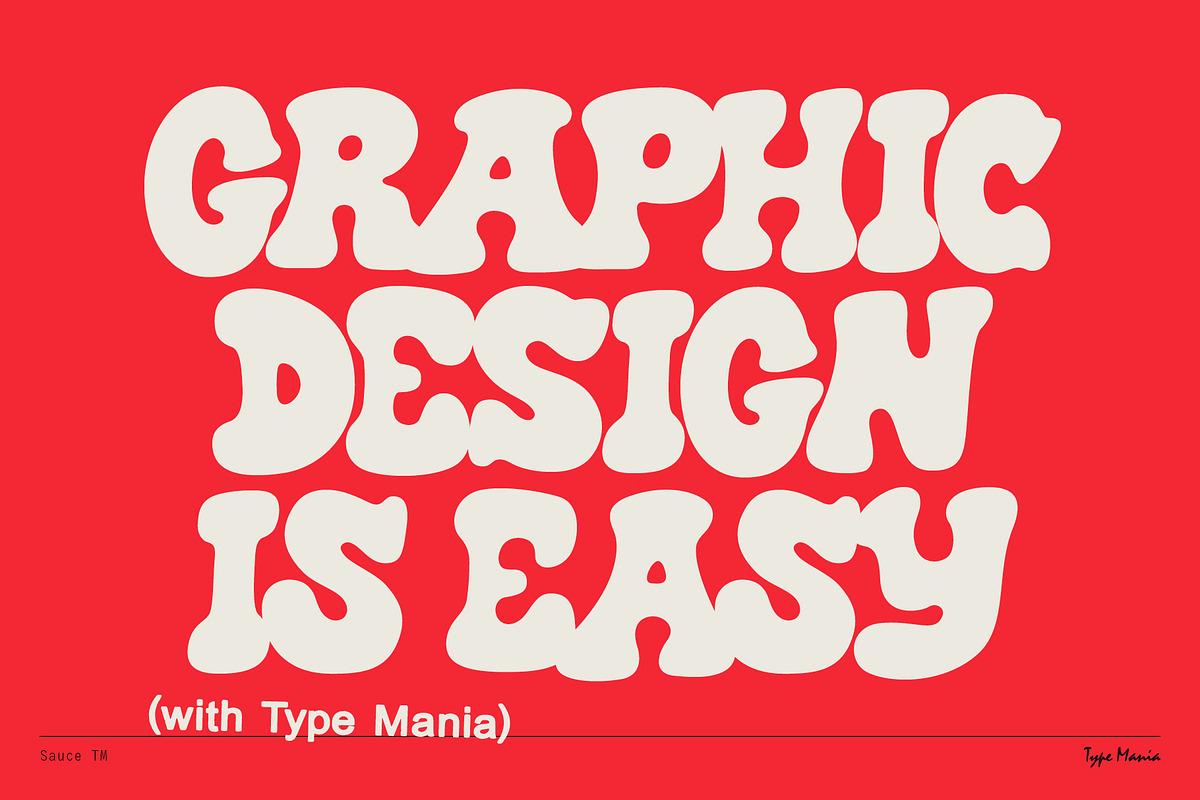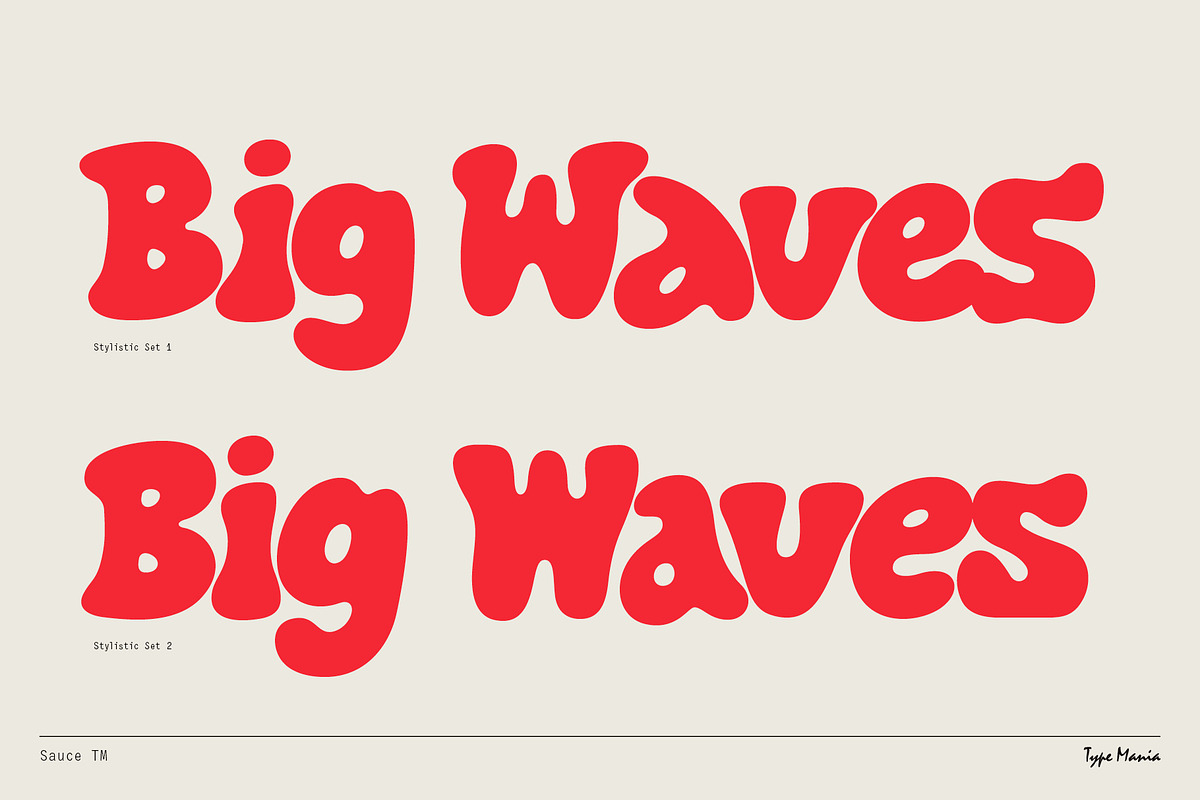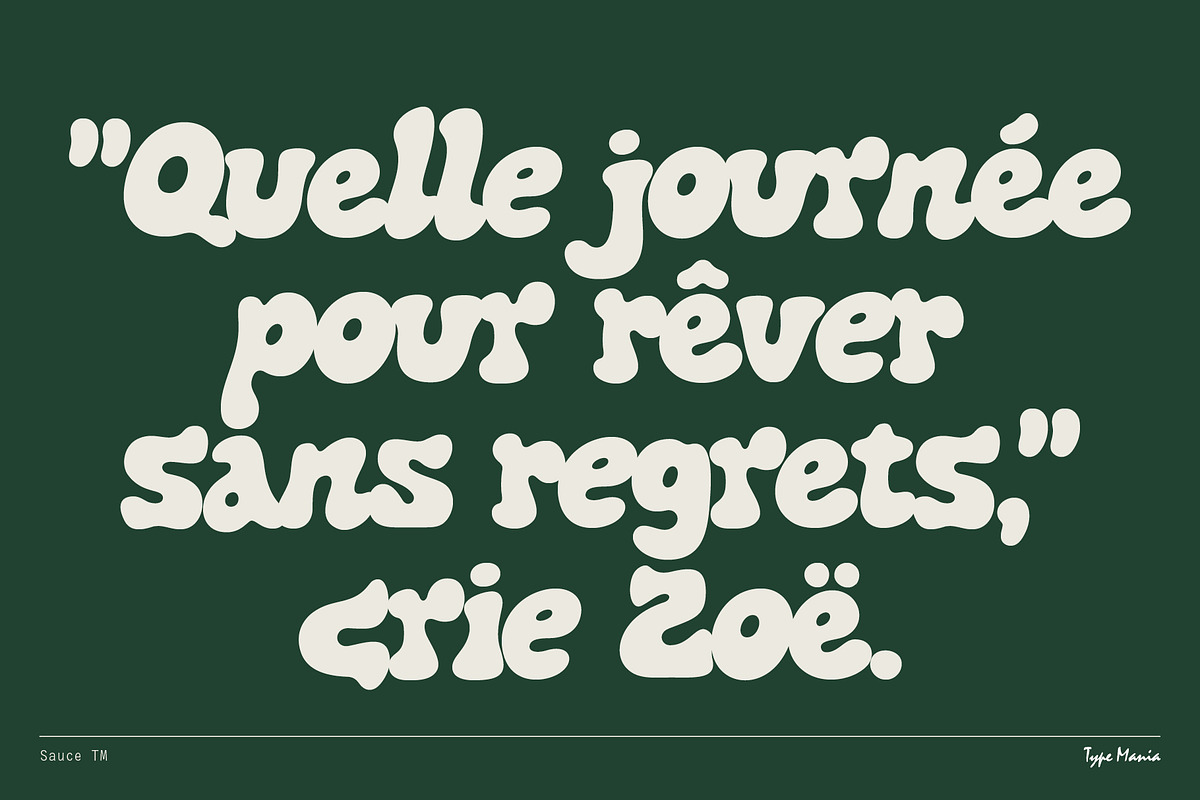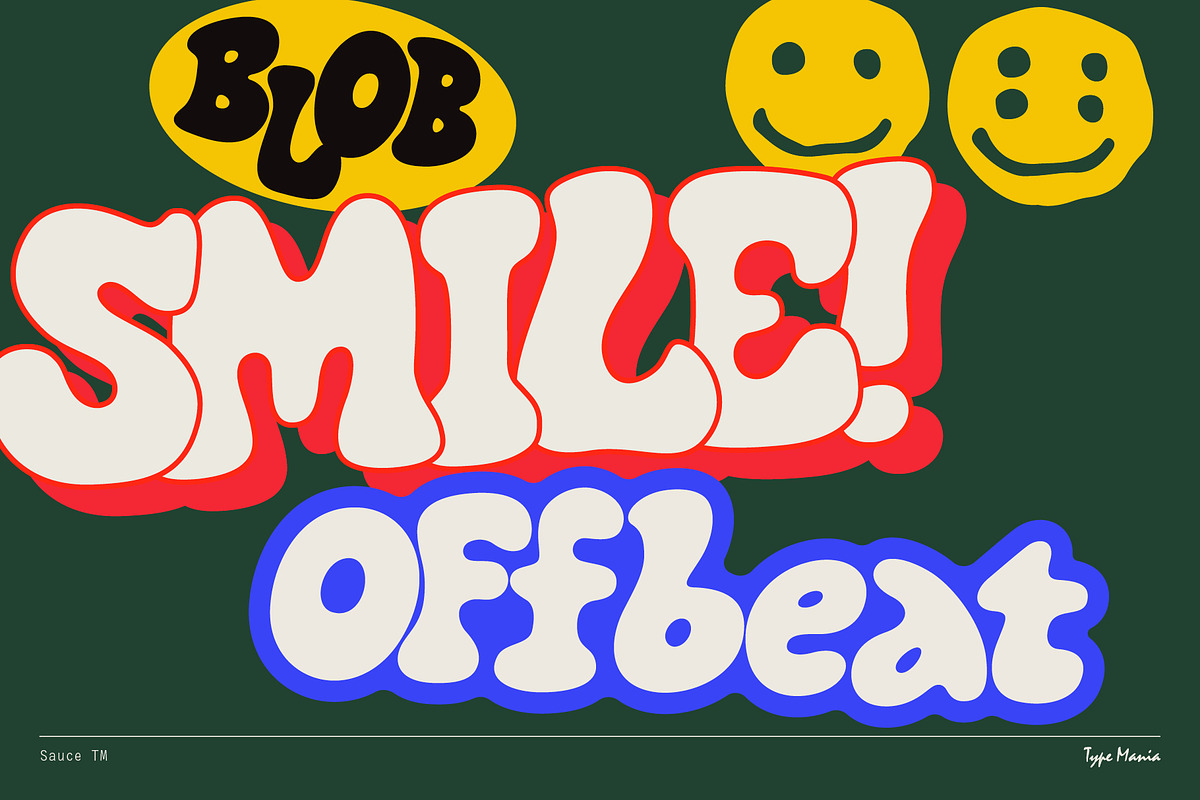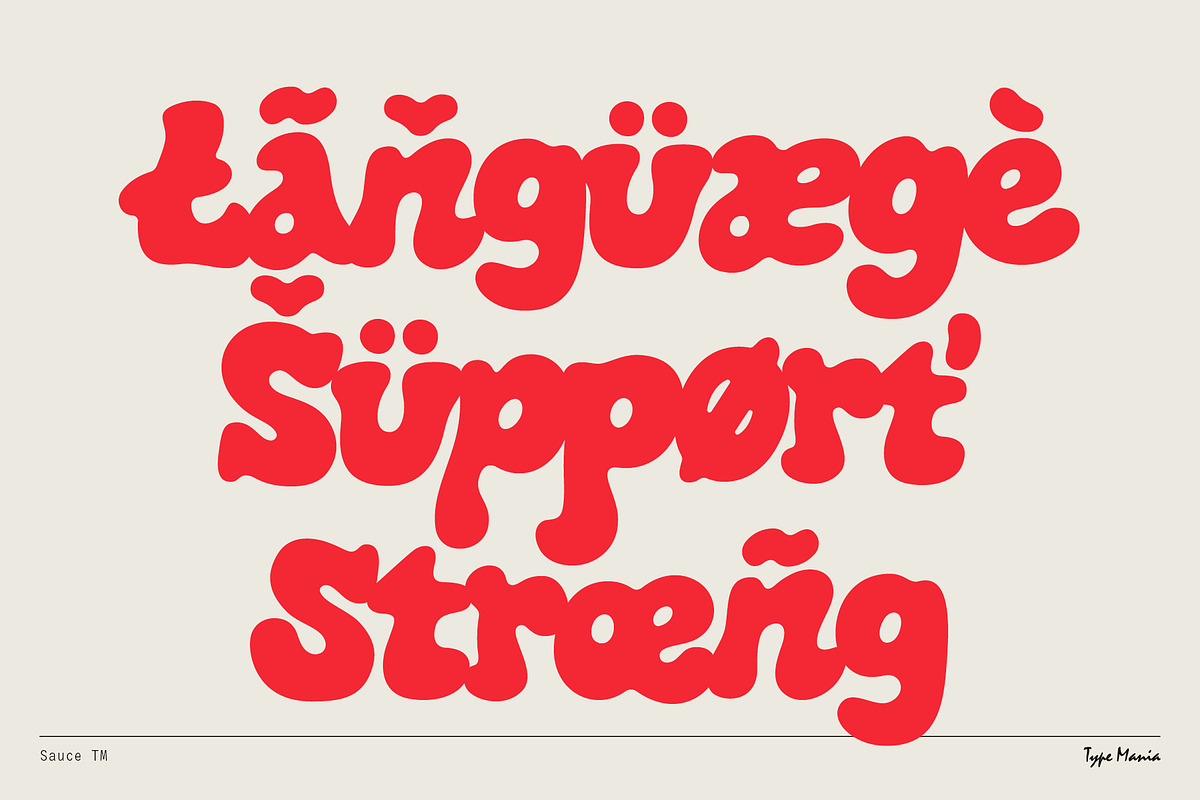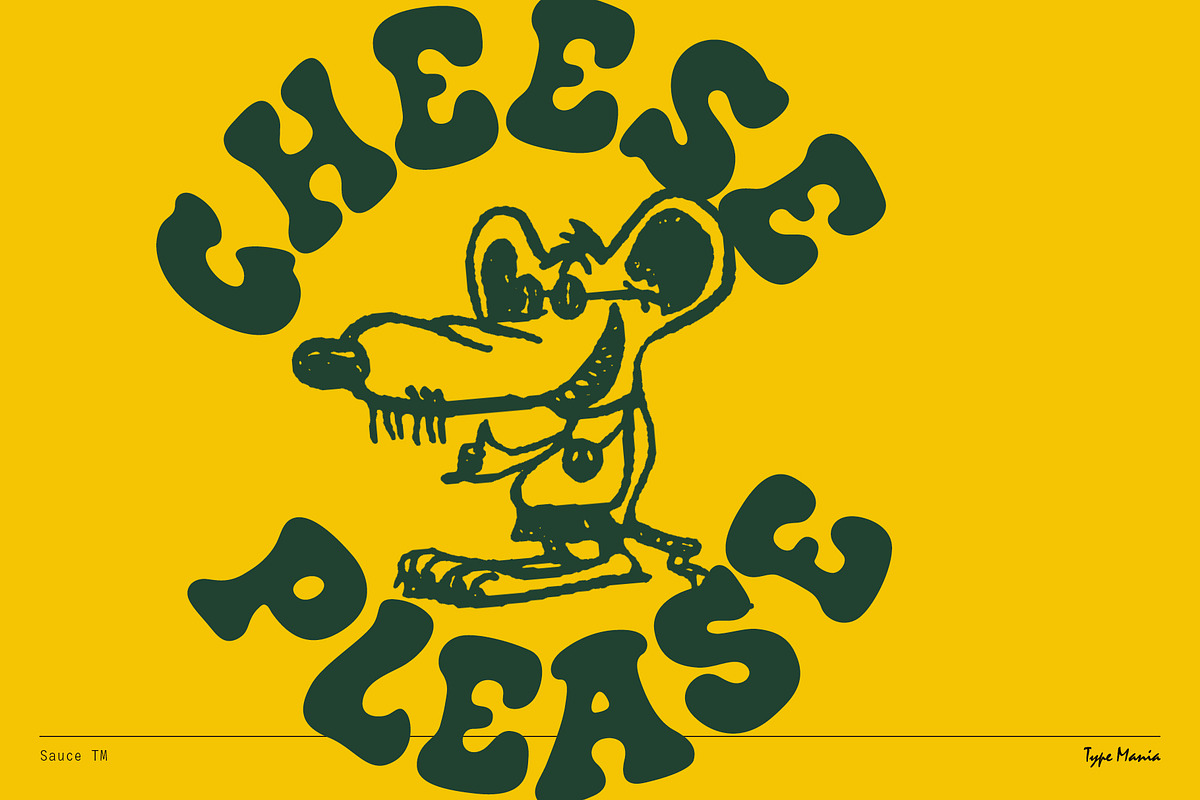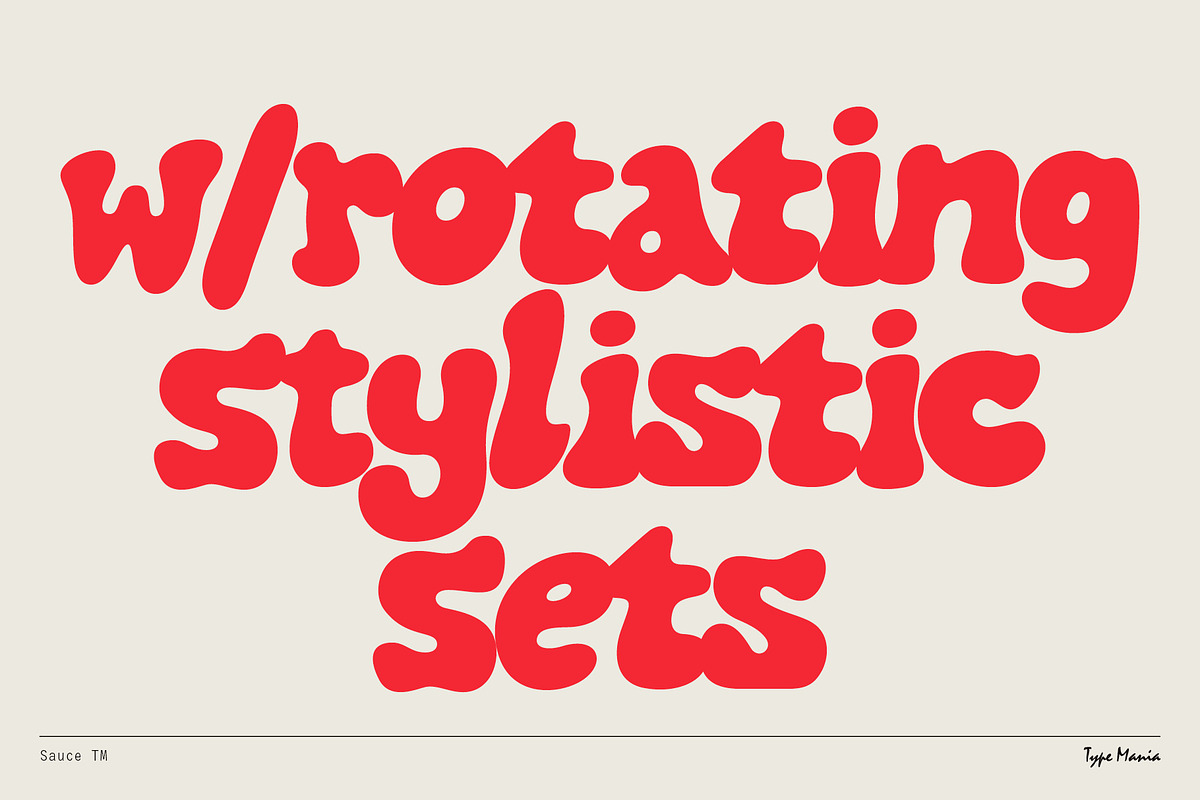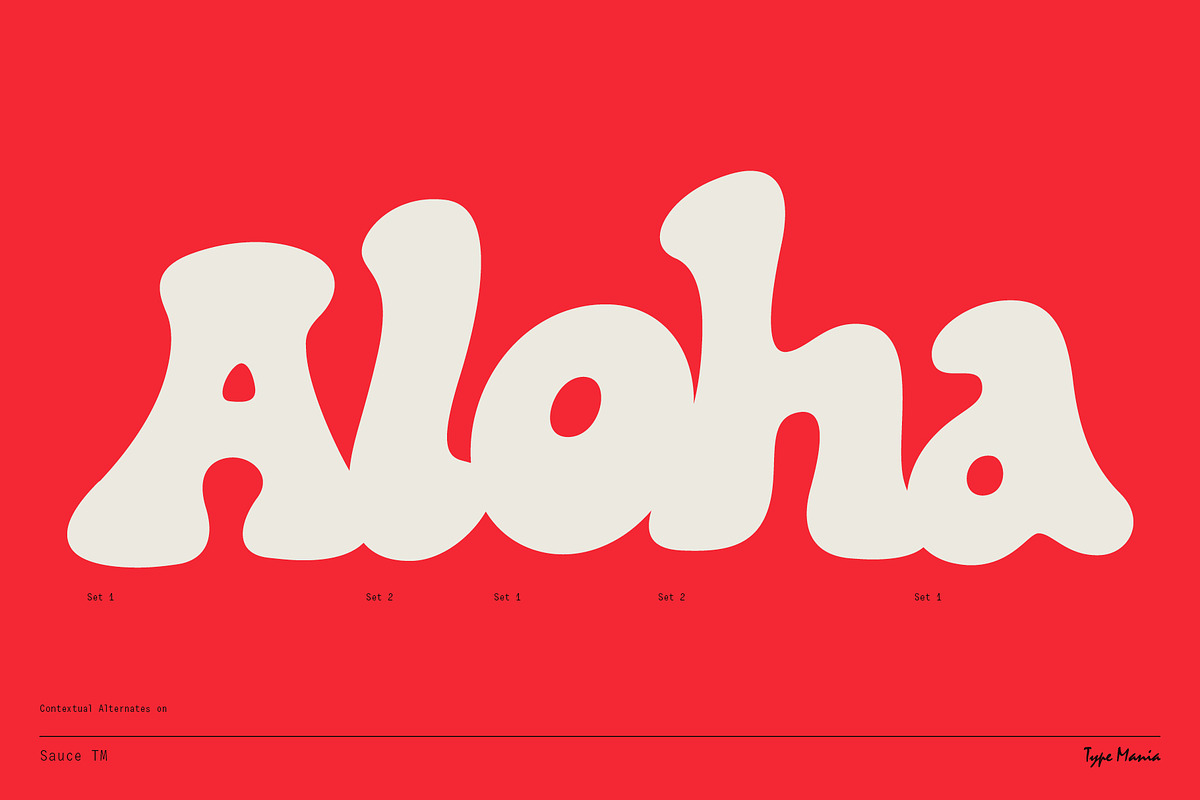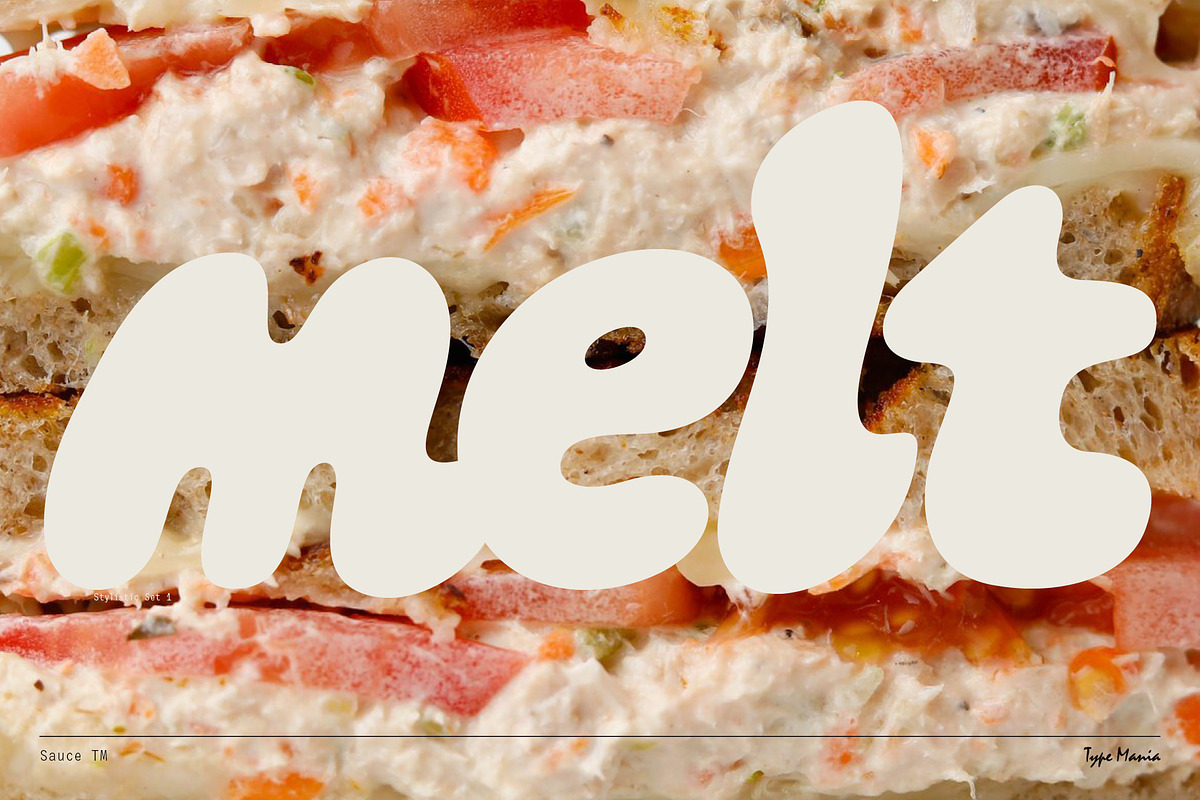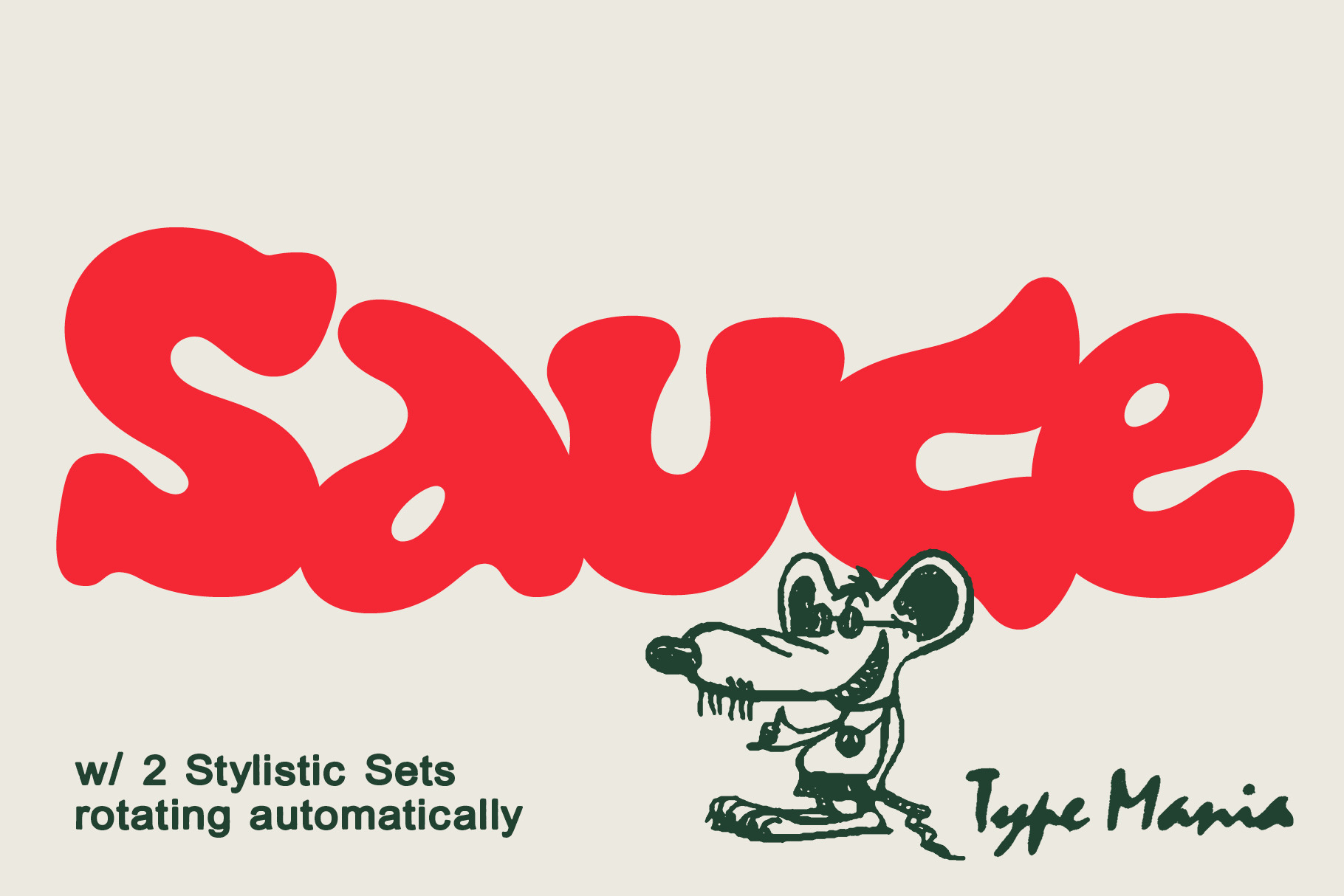
Sauce TM – Bubbly Font
Soft edges, bold presence. Sauce TM flows smooth but hits hard, with just a hint of provolone in the mix. Toggle on Contextual Alternates to cycle between two stylistic sets as you type, giving your layout an organic feel damn near automatic.
OpenType features
- 2 stylistic sets
- The font is programmed to automatically shift between the stylistic sets